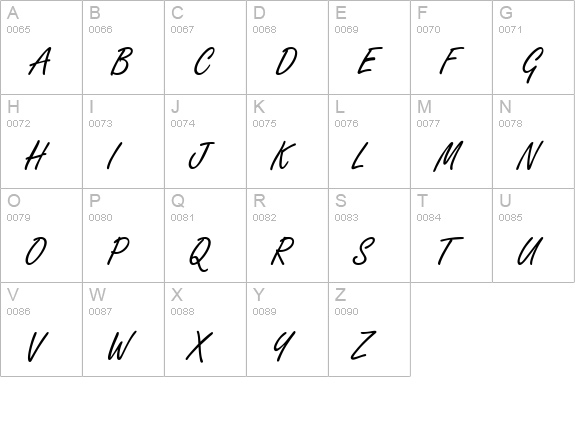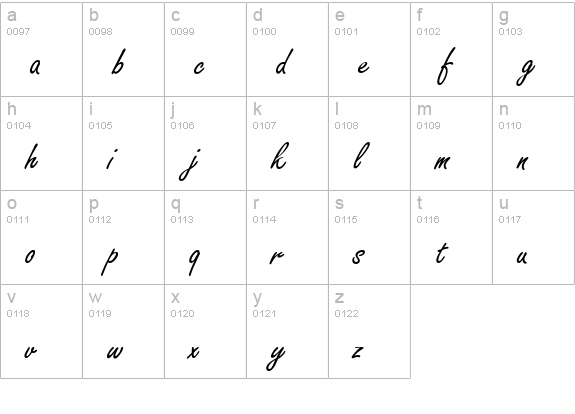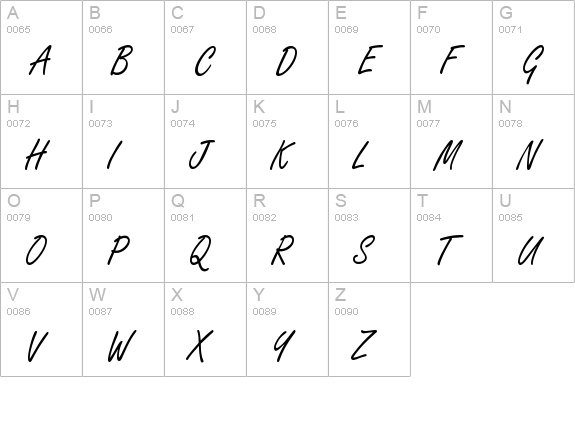
Nano Script SSi Font Details
The Nano Script SSi font is a stylish and modern typeface that exudes elegance and sophistication. With its sleek lines and flowing curves, this font is perfect for adding a touch of refinement to any design project. Whether you're creating invitations, logos, or branding materials, Nano Script SSi will make your text stand out with its unique charm. Best of all, Nano Script SSi is available for free! You can download this beautiful font at FontsMarket.com and start using it in your projects right away. Don't miss out on the opportunity to enhance your designs with the beauty and versatility of Nano Script SSi. Download it today and elevate your typography game!